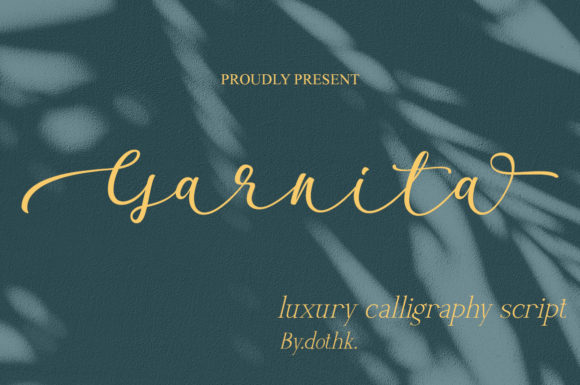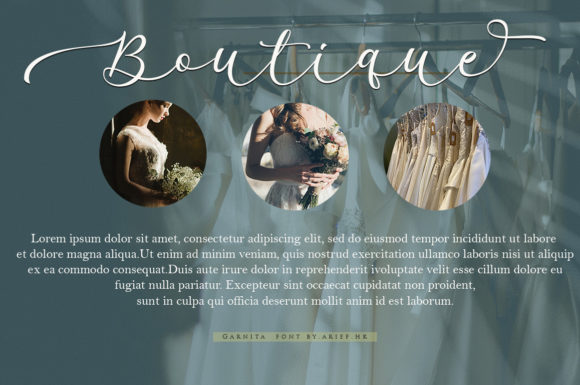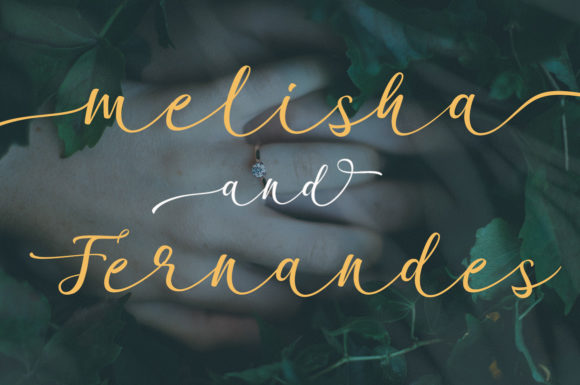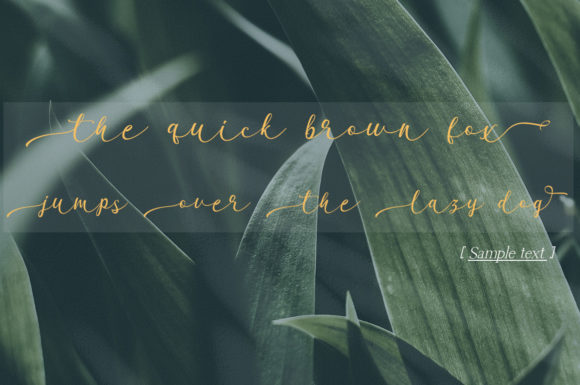
Garnita Script Font
About Garnita Script Font
Garnita Script is a lovely, flowing and delicate script font. It is PUA encoded which means you can access all of the glyphs and swashes with ease! Fall in love with this cursive and distinct font and add it to your most beloved creations.